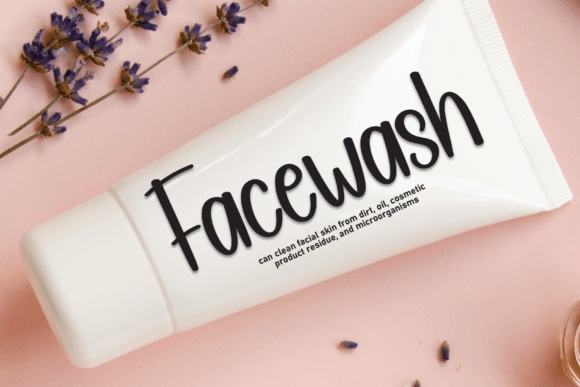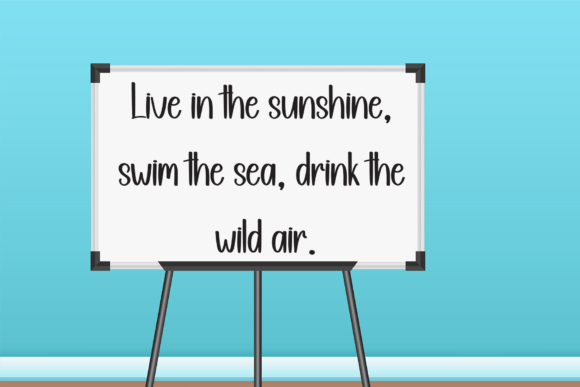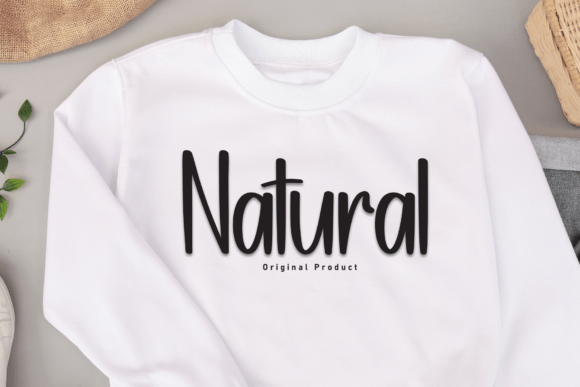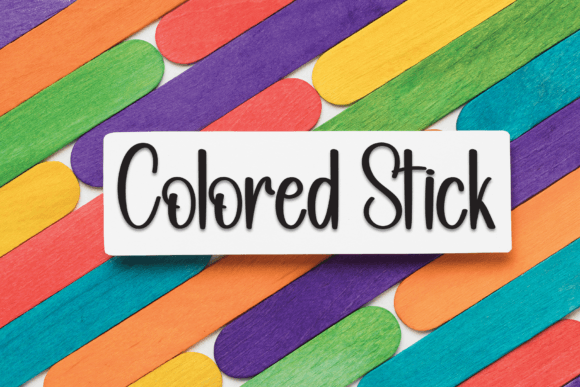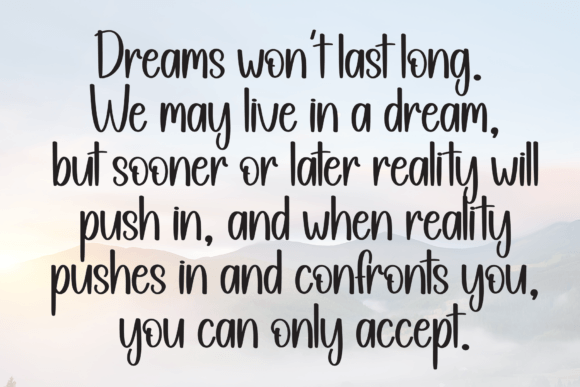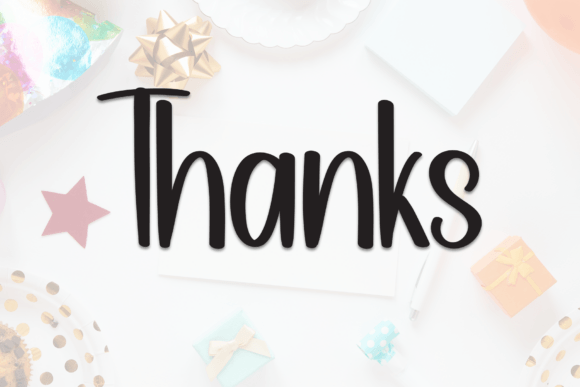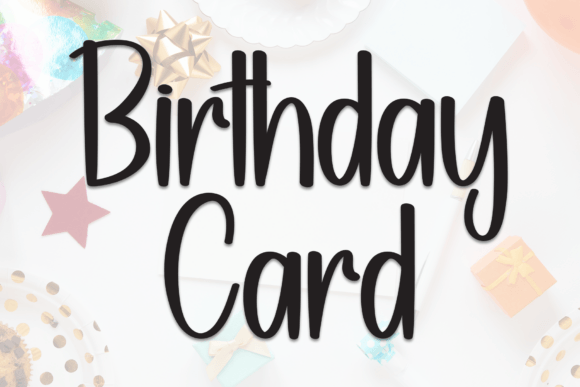
Introducing Birthday Card Font: The Perfect Addition to Your Design Collection
Are you a designer or crafter looking for a unique and friendly font to add a personal touch to your creations? Look no further than the Birthday Card Font! This sweet and friendly handwritten font is perfect for a wide range of designs, from birthday cards to party invitations, and everything in between.
The Characteristics of Birthday Card Font
So, what makes the Birthday Card Font so special? For starters, its natural and unique style sets it apart from more traditional fonts. The letters are handwritten with a carefree flair, giving your designs a personal and approachable feel. The font’s friendly demeanor makes it perfect for projects that require a warm and inviting tone.
One of the best things about the Birthday Card Font is its versatility. Its clean and simple design makes it easy to read, while its distinctive style ensures that your designs will stand out from the crowd. Whether you’re creating a birthday card, a party invitation, or a social media graphic, this font is sure to make your project shine.
The Benefits of Using Birthday Card Font
So, why choose the Birthday Card Font for your next project? For one, it’s incredibly easy to use. The font is compatible with a wide range of design software, making it simple to incorporate into your workflow. Plus, the font is highly legible, ensuring that your message will be clear and easy to read.
Another benefit of using the Birthday Card Font is its flexibility. The font can be used for a wide range of projects, from digital designs to print materials. Whether you’re creating a social media graphic, a birthday card, or a party invitation, this font is sure to be a great fit.
How to Use Birthday Card Font in Your Designs
So, how can you use the Birthday Card Font in your designs? Here are a few ideas to get you started:
- Birthday Cards: The Birthday Card Font is perfect for creating custom birthday cards. Pair it with a bright and colorful design for a card that’s sure to make the recipient feel special.
- Party Invitations: Create custom party invitations that set the tone for a fun and festive celebration. The Birthday Card Font is perfect for invitations, thanks to its friendly and approachable style.
- Social Media Graphics: Add a personal touch to your social media graphics with the Birthday Card Font. Use it to create custom graphics for birthdays, holidays, or other special occasions.
- Crafting Projects: The Birthday Card Font is also perfect for crafting projects, such as scrapbooking, journaling, and card making. Add a personal touch to your projects with this unique and friendly font.
The Possibilities are Endless!
The best thing about the Birthday Card Font is that the possibilities are endless! With its natural and unique style, you can create a wide range of designs that are sure to impress. Whether you’re a designer, crafter, or DIY enthusiast, this font is sure to be a valuable addition to your collection.
In conclusion, the Birthday Card Font is a sweet and friendly handwritten font that’s perfect for a wide range of designs. Its natural and unique style makes it incredibly fitting to a large pool of designs, and its versatility ensures that it can be used for everything from digital designs to print materials.